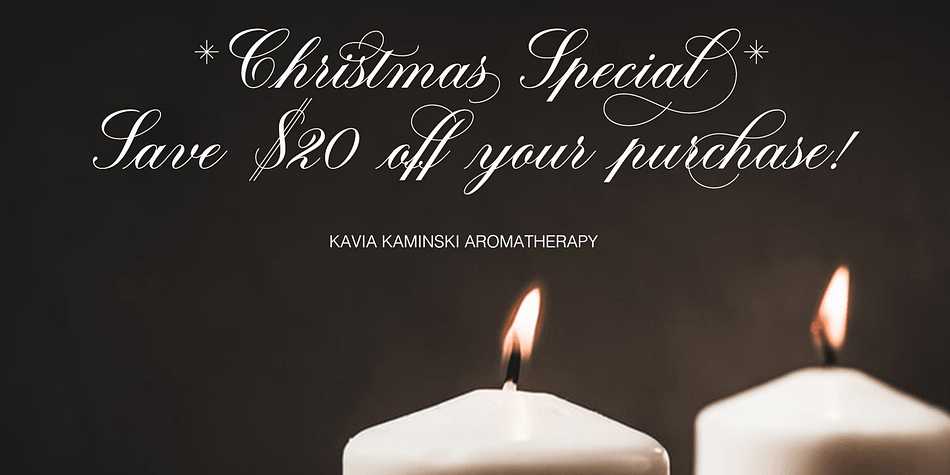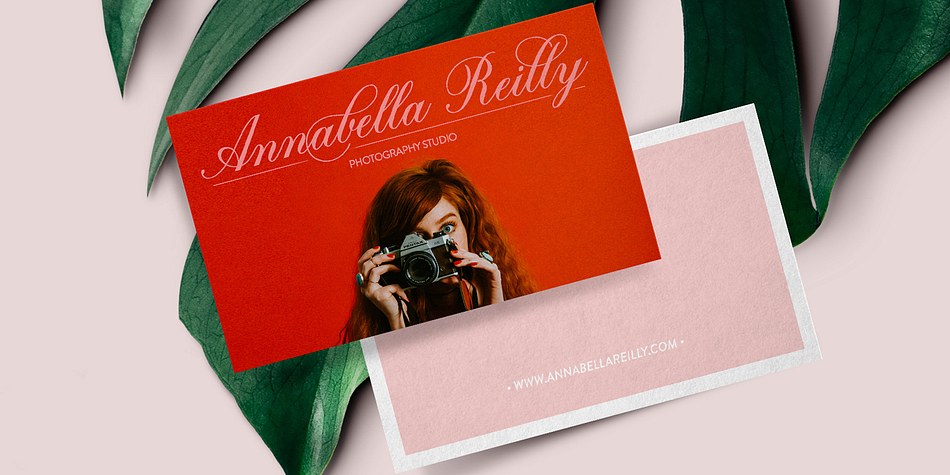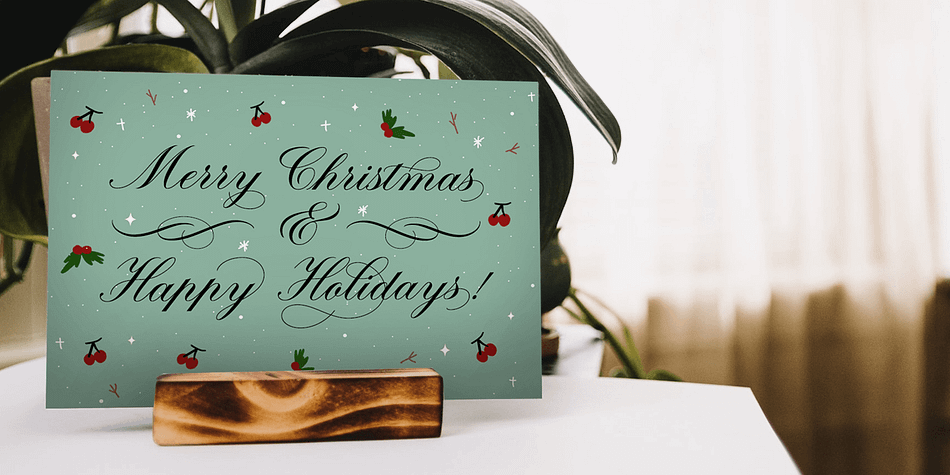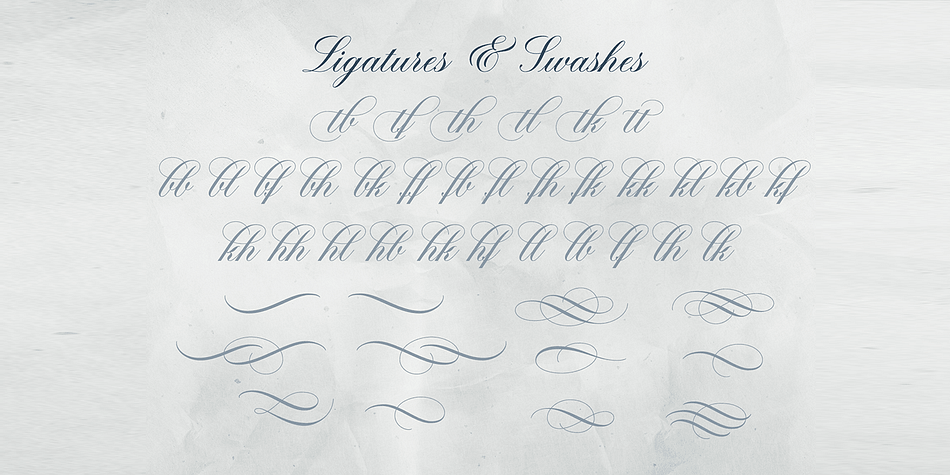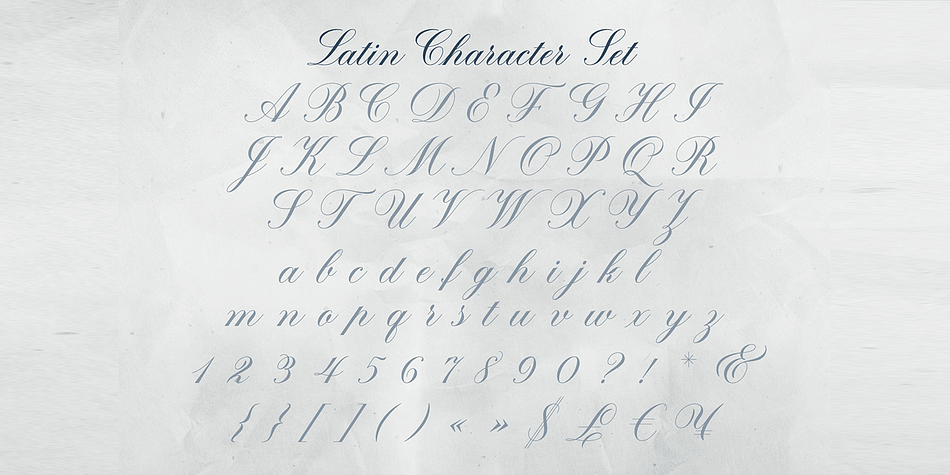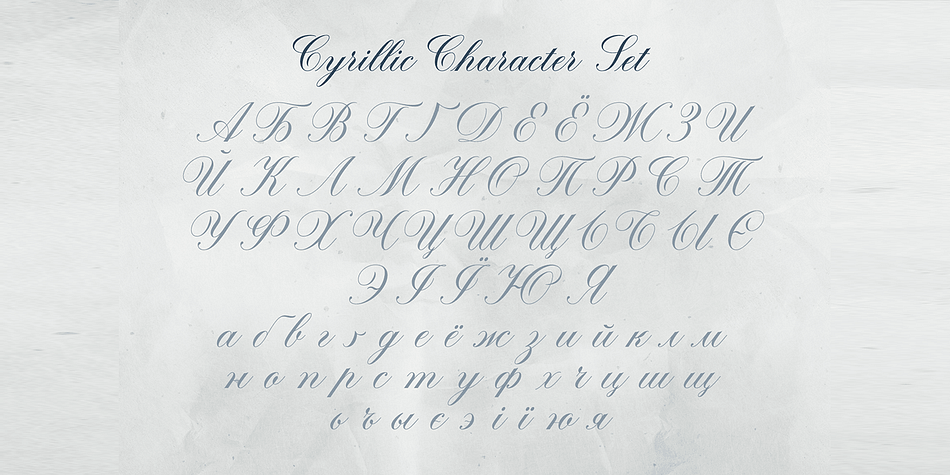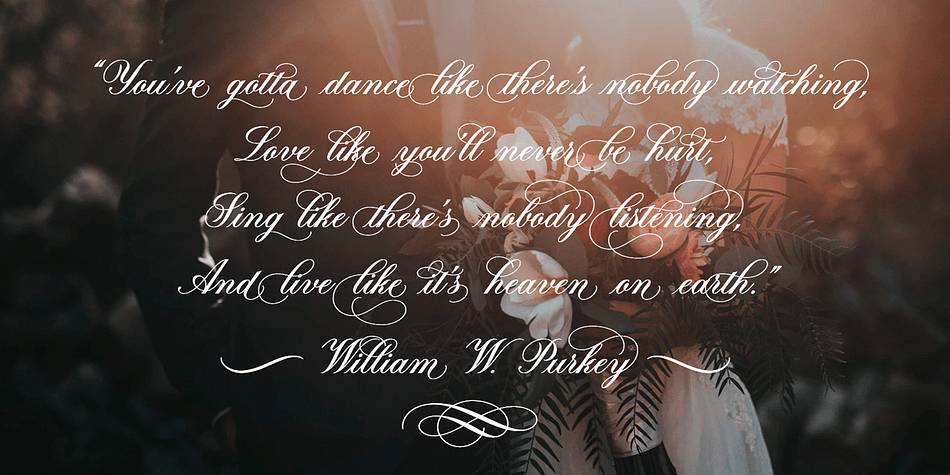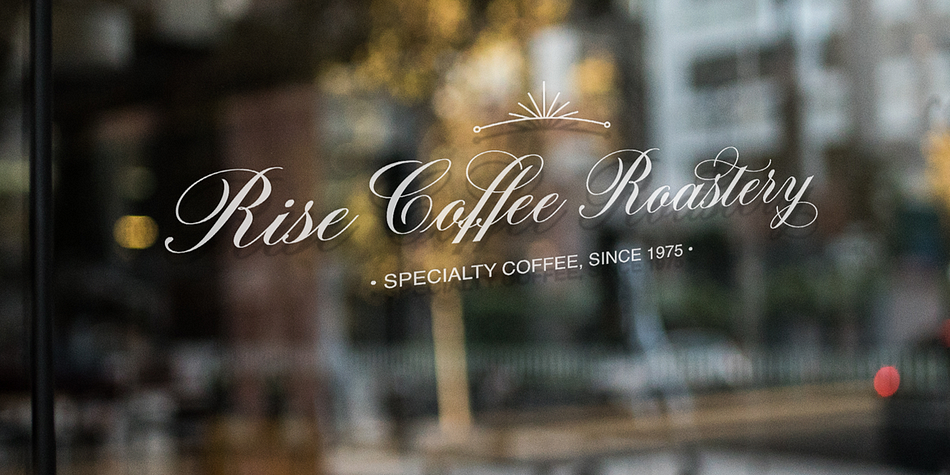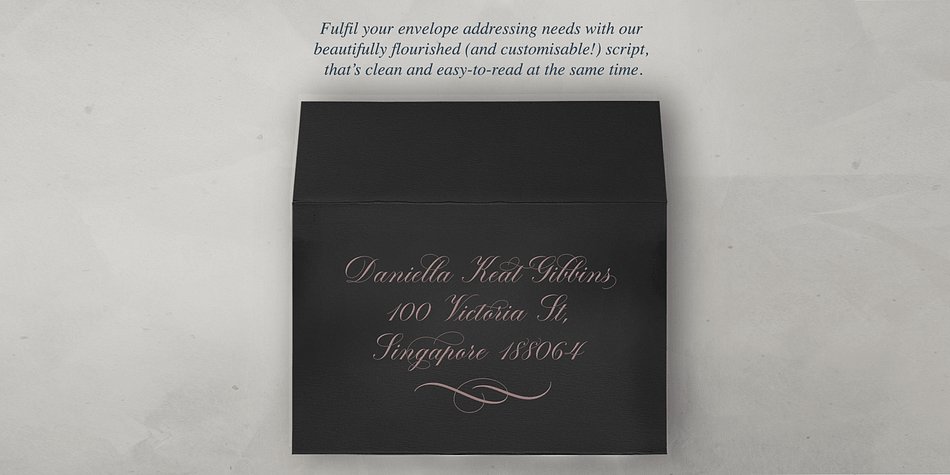
Designed by Roland Hüse and Leah Chong, Brachetto is a script font published by Fonts by Roland Hüse.
Brachetto is a calligraphy script font, influenced by traditional script style with an added touch of modernity and flourished elegance. It features a diverse range of stylistic alternates, contextual alternates, standard ligatures and terminal forms, and ensures countless options for you to choose from for your design work. This font is delicately crafted and well thought out with every little detail in mind, to ensure its ease and versatility when used.
Being elegant yet bold in its visual presence, Brachetto is perfect for premium packaging, stationery design, invitations, posters, logos, custom products, lifestyle imagery and more; or essentially, anything that needs an upscale and premium lift. Other than the standard Latin set, Brachetto proudly features the Cyrillic alphabet, along with its corresponding stylistic alternates, for those in Russia and Ukraine.
Font Features:
Character set:
Latin character set: Uppercase & Lowercase A - Z
Cyrillic character set: Uppercase & Lowercase A - Z
Stylistic Alternates (5 Sets)
Contextual Alternates
Standard Ligatures
Swashes
Terminal Forms (Initial & Final Forms)
Numerals & Punctuation
Accented Characters